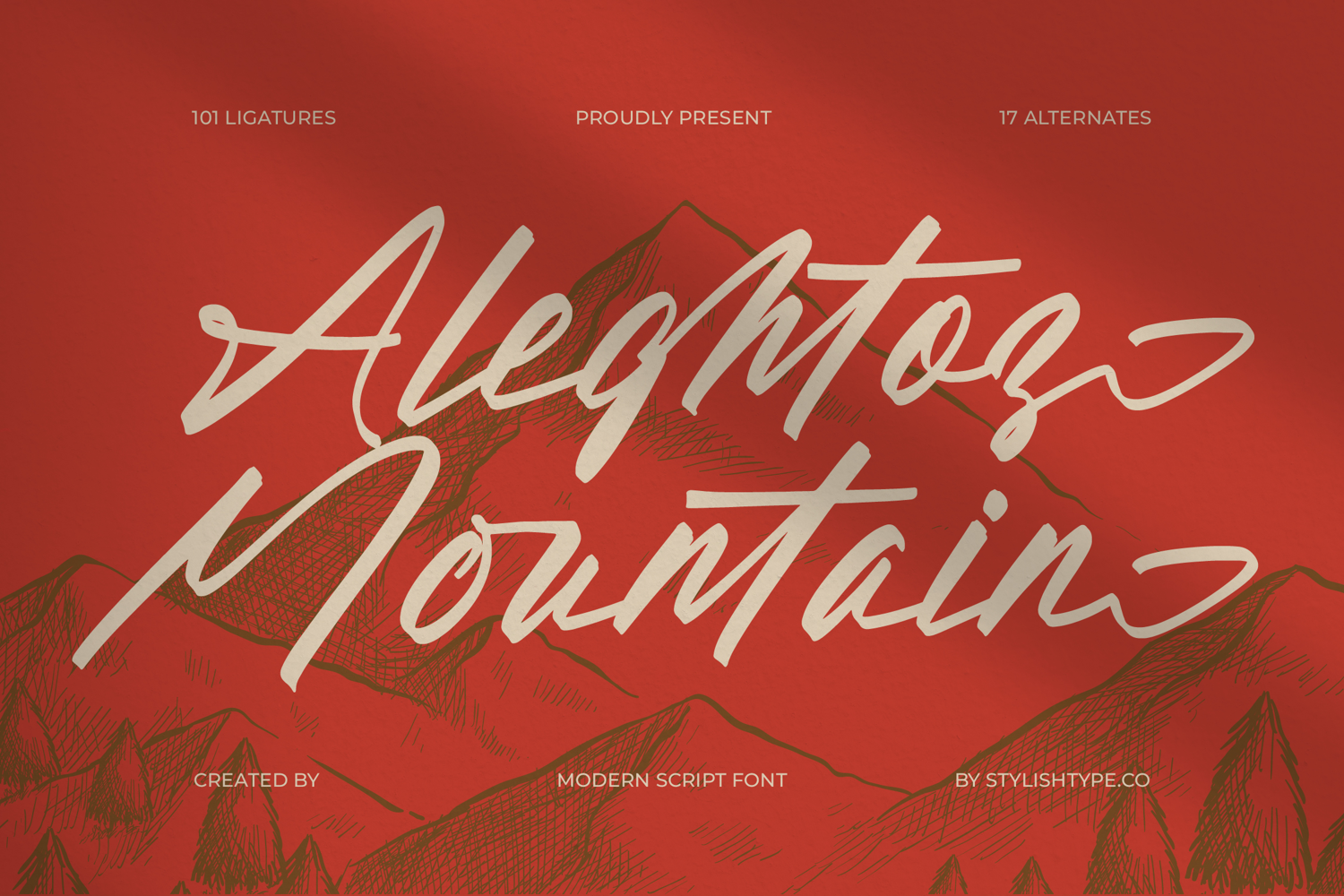
Aleghtoz Mountain - Modern Script Font
Aleghtoz Mountain
Aleghtoz Mountain Italic
Elevate your brand identity above the noise. Aleghtoz Mountain - Modern Script Font is perfectly suited for luxury branding, apparel design, and products requiring a strong sense of bespoke quality and adventure. It excels in environments like craft distillery labels, high-end stationery, outdoor adventure tourism marketing, and signature logos, where its rugged yet refined presence communicates immediate authenticity and heritage.